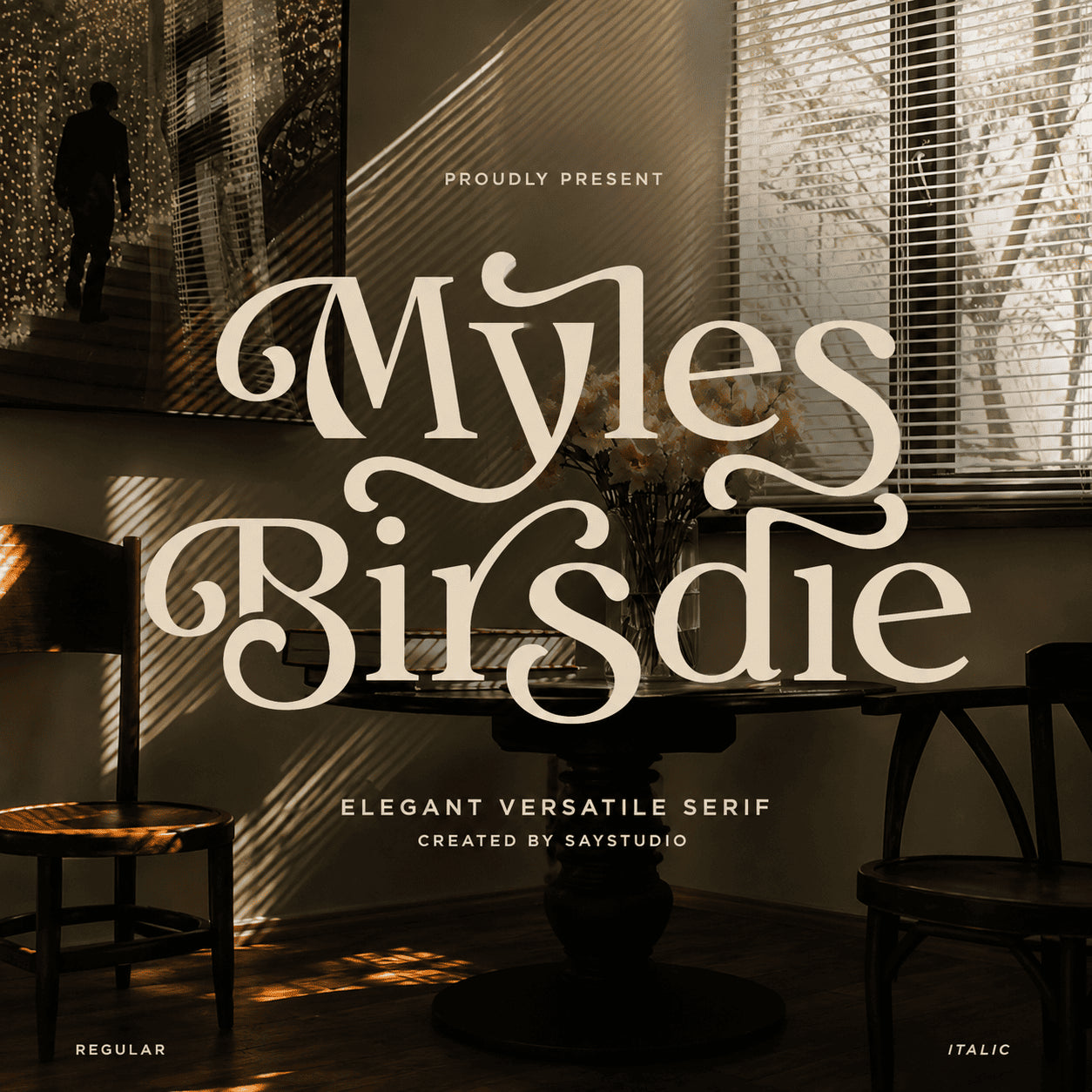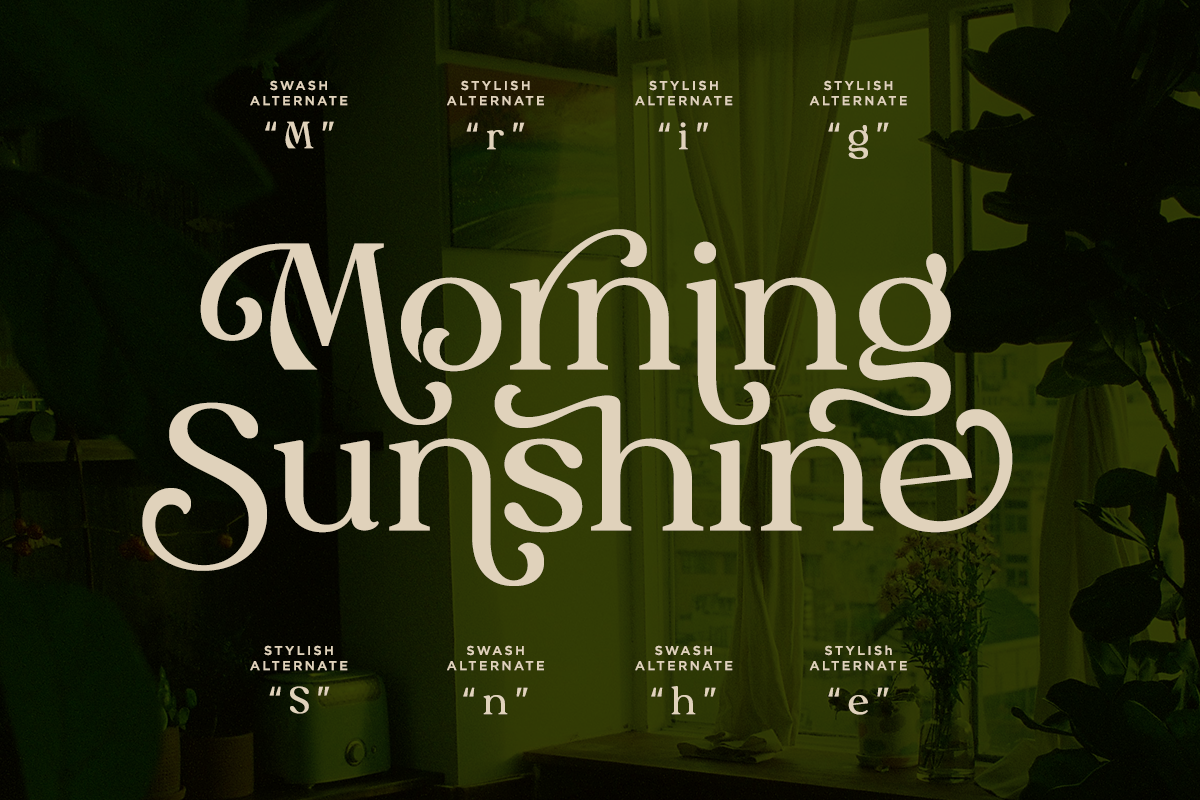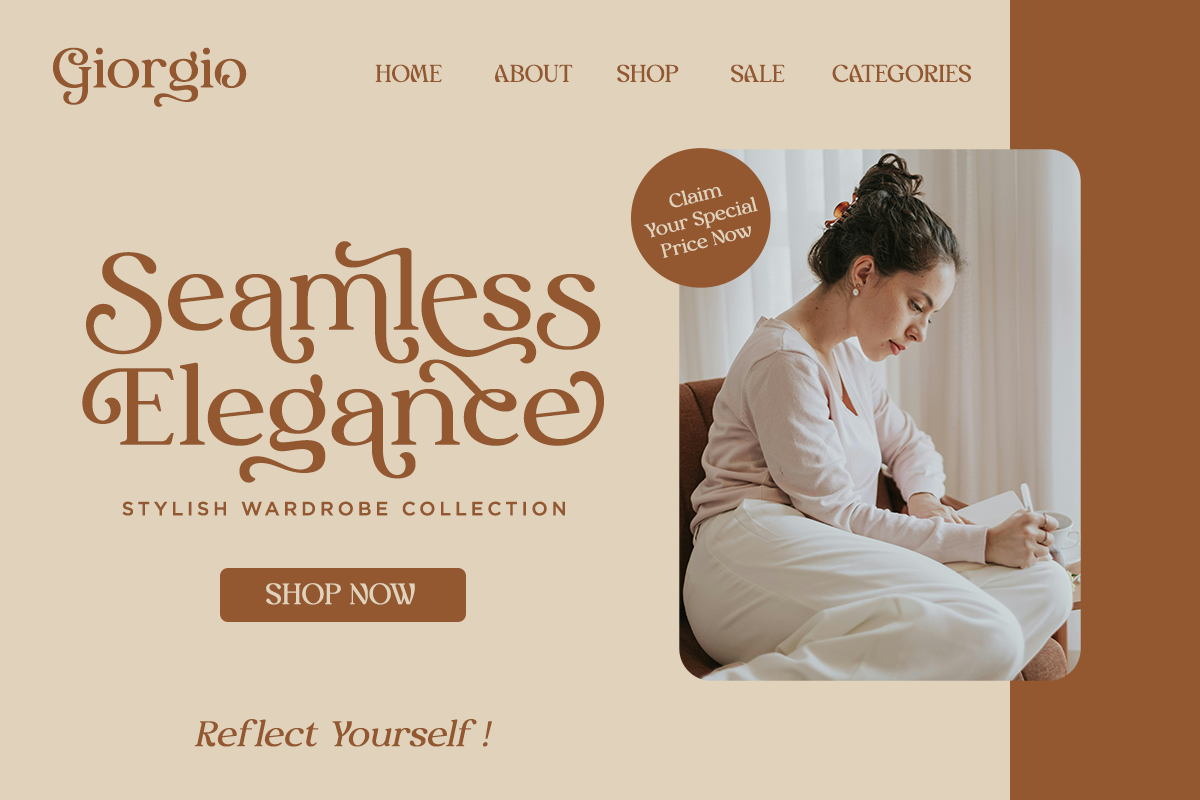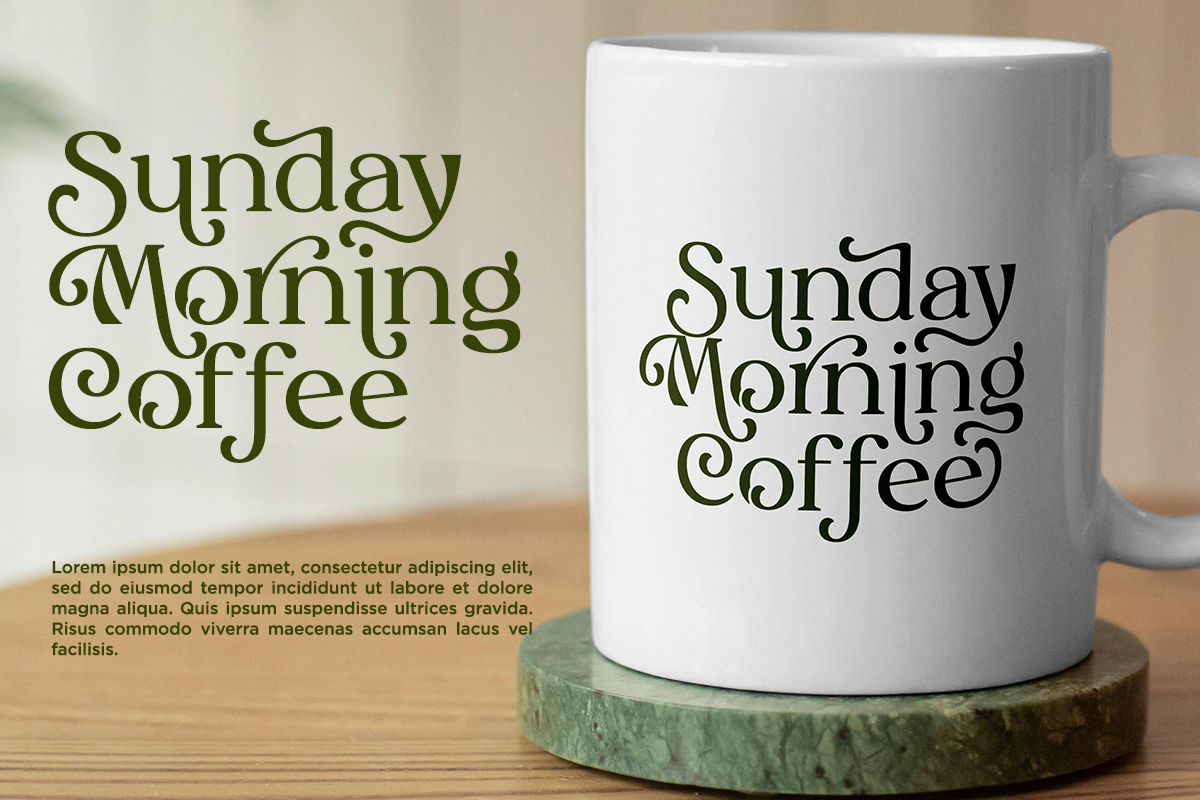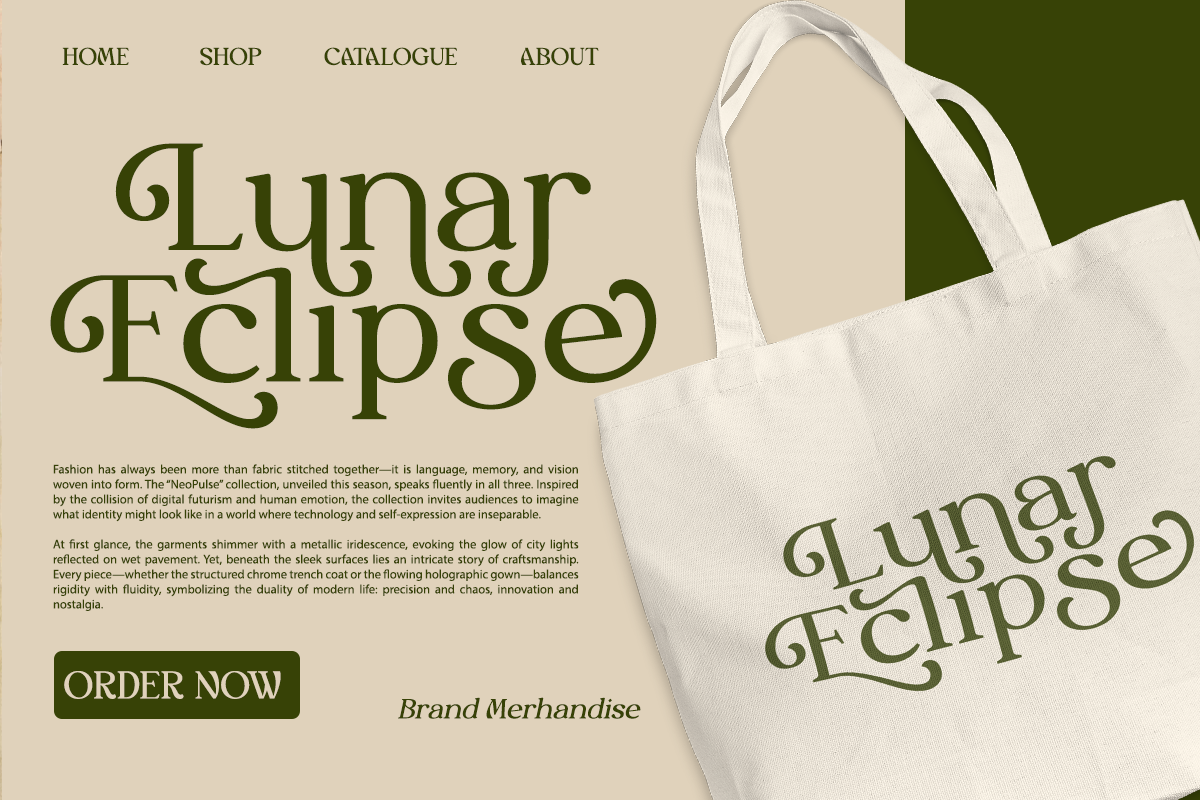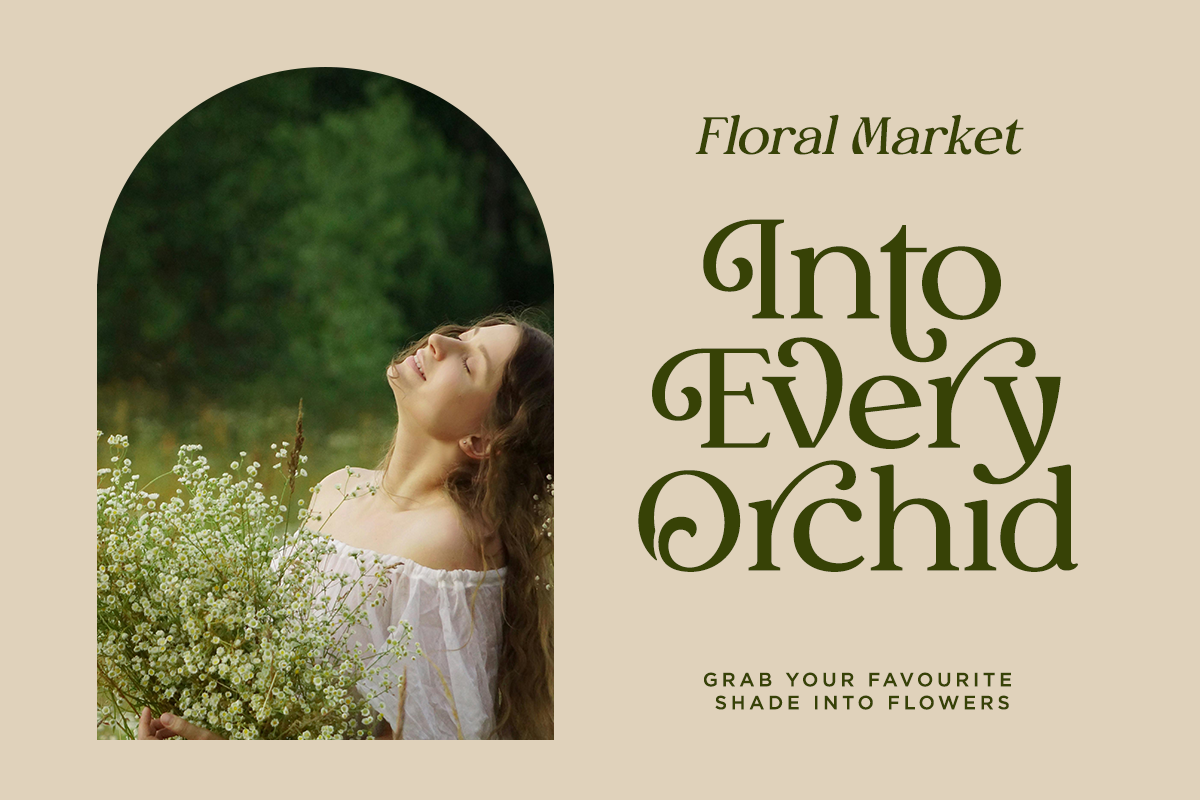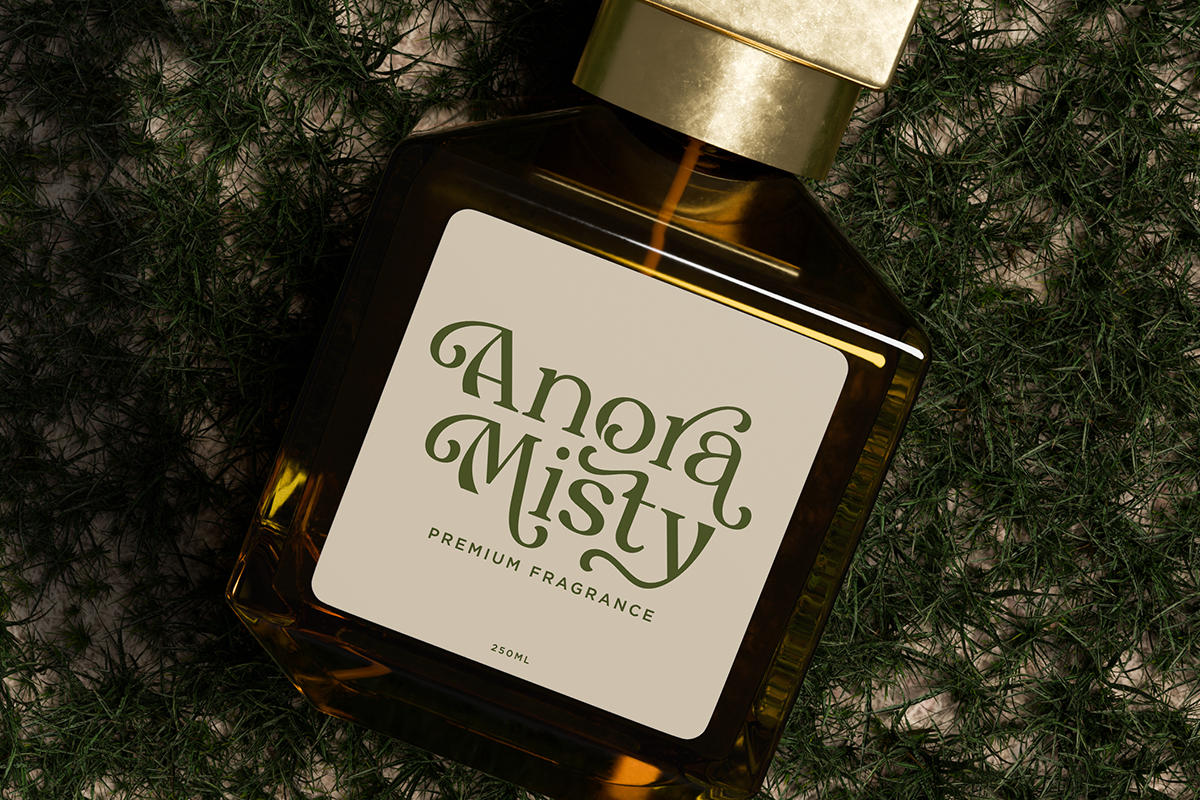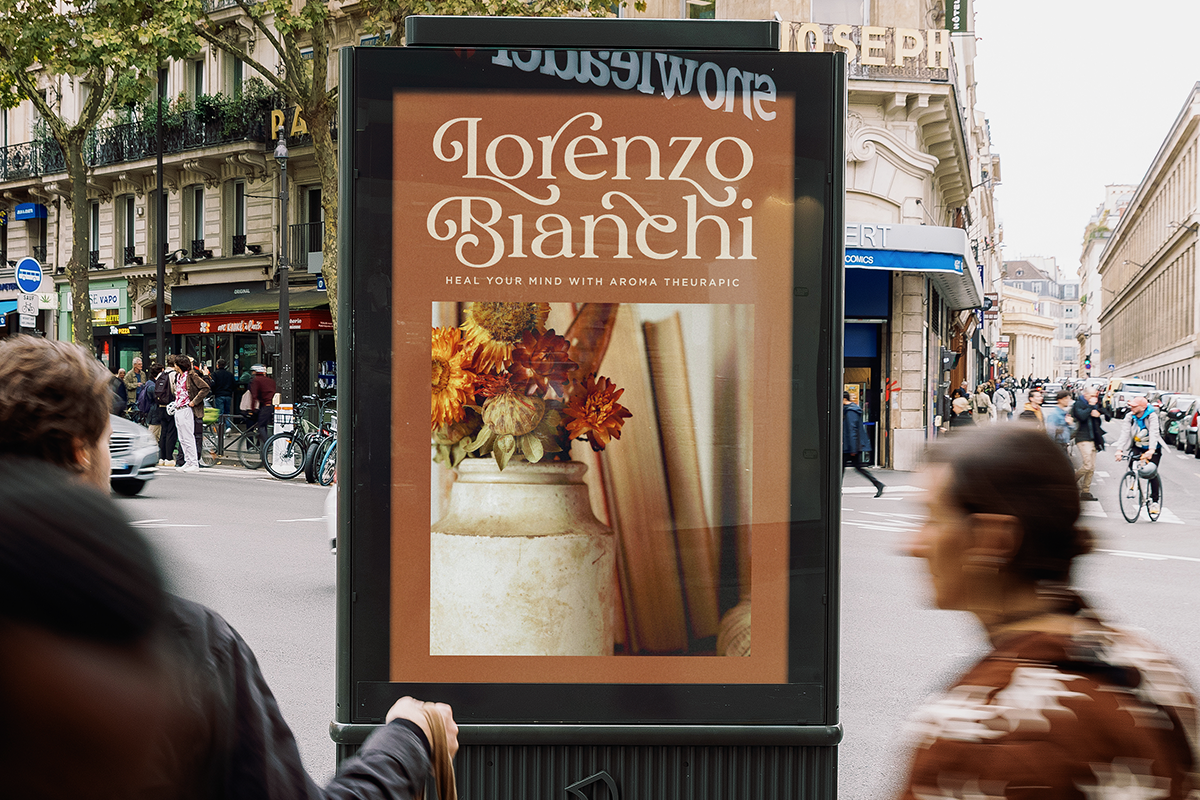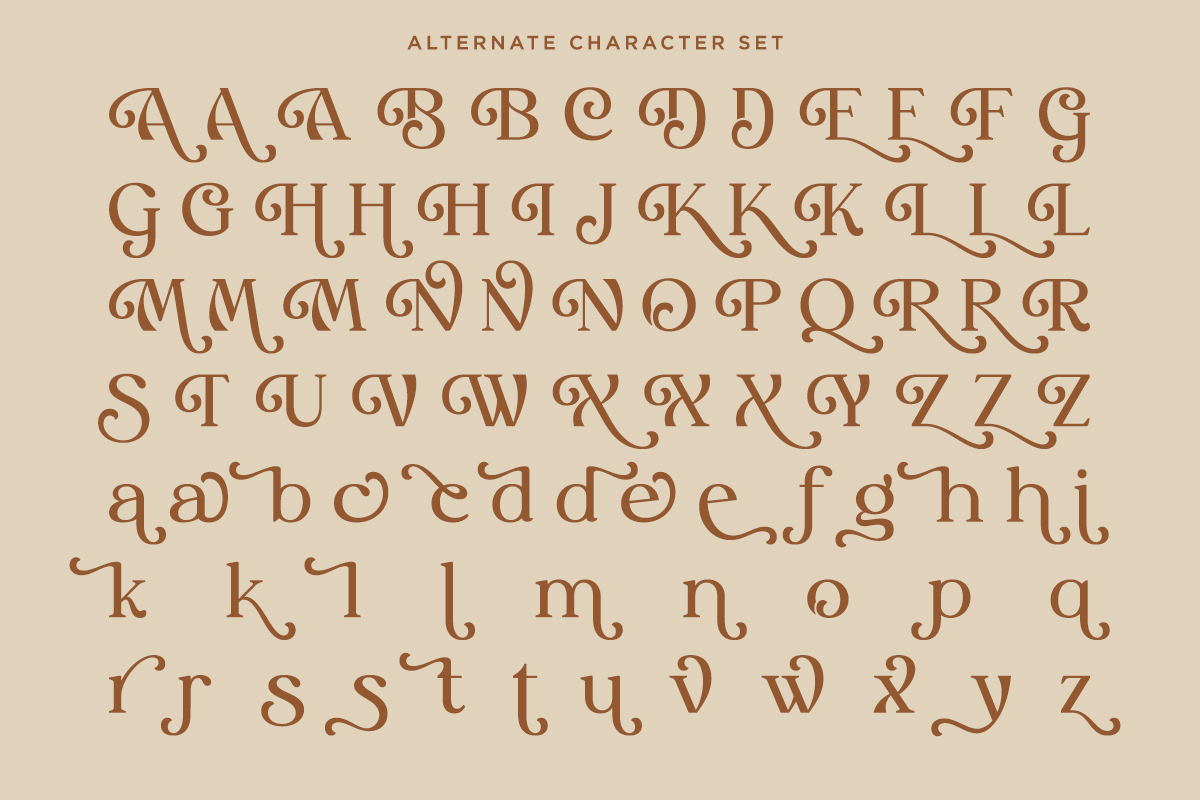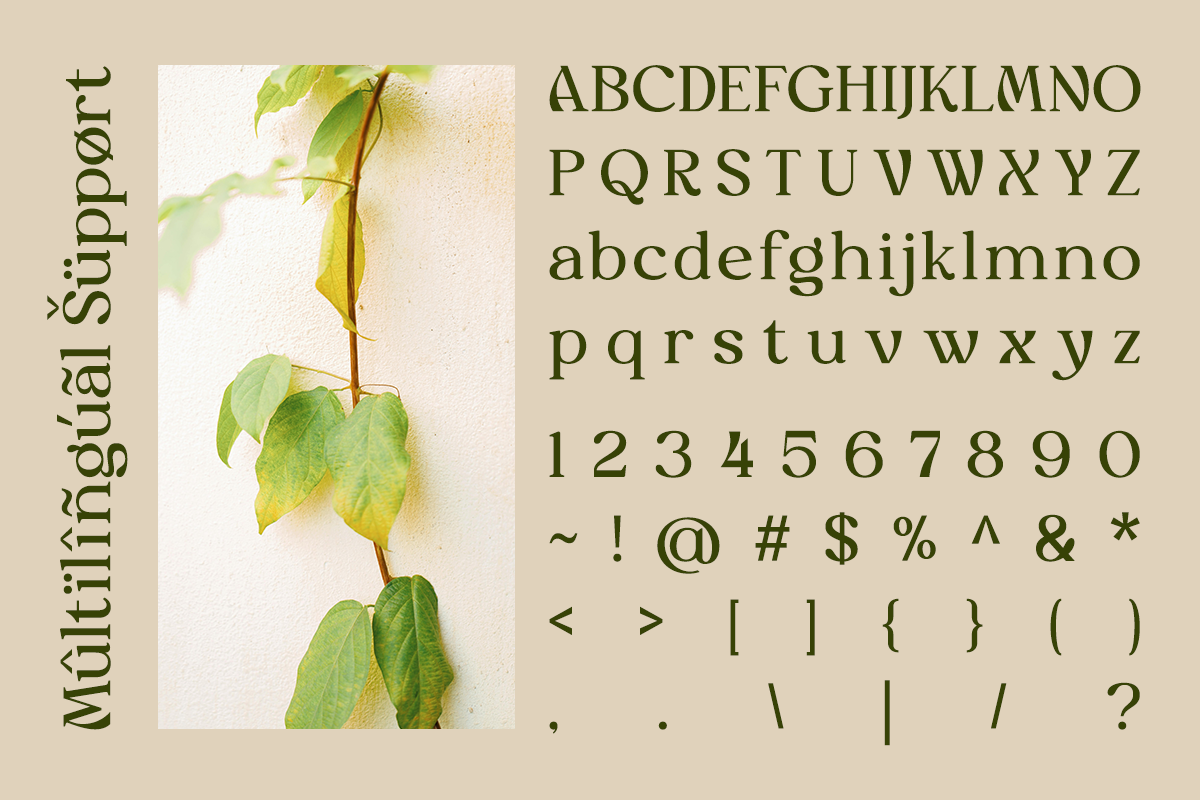
Myles Birsdie - Decorative Elegant Serif Font
Myles Birsdie is an elegant versatile serif font that blends timeless sophistication with artistic personality. Featuring graceful curves, stylish alternates, and refined decorative details, this typeface creates a warm and luxurious aesthetic that feels both vintage-inspired and contemporary. Designed to deliver elegance with excellent readability, Myles Birdsie is perfect for designers who want typography that makes a lasting impression.
Created for luxury branding, fashion editorials, beauty products, floral boutiques, cafés, lifestyle brands, wedding stationery, premium packaging, magazines, social media, and high-end business identities, Myles Birdsie offers exceptional flexibility. Complete with multilingual support, OpenType alternates, stylistic characters, numerals, punctuation, and decorative letterforms, it provides everything needed to build memorable visual identities across both print and digital media.
Whether you're designing elegant logos, product packaging, cosmetic labels, invitation cards, editorial layouts, café branding, boutique marketing materials, websites, or premium advertising campaigns, Myles Birdsie delivers a charming and sophisticated character. Its versatile serif style combines classic beauty with modern functionality, making it an excellent choice for creative professionals seeking refined typography with timeless appeal.
Stylistic Alternates Uppercase
Stylistic Alternates Lowercase
Multilungual Support
Myles Birsdie is an elegant serif font that features graceful curves, stylish alternates, and refined decorative details, offering excellent readability and a luxurious aesthetic. It includes regular and italic styles, stylistic alternates for uppercase and lowercase letters, multilingual support, and a variety of numerals, symbols, and punctuation, available in OTF, TTF, and WOFF formats.